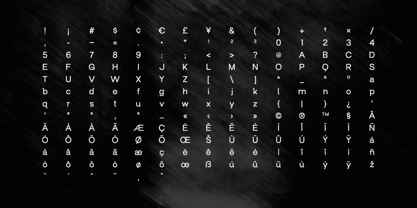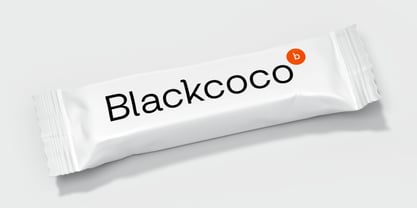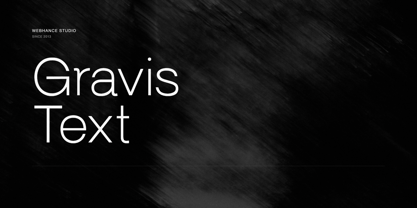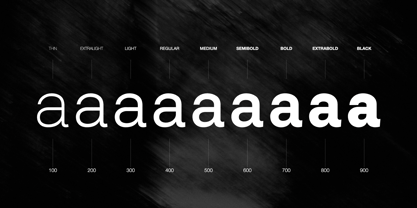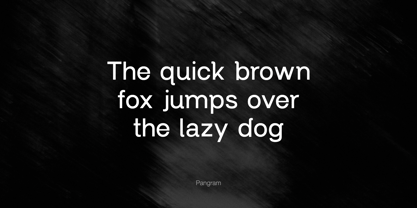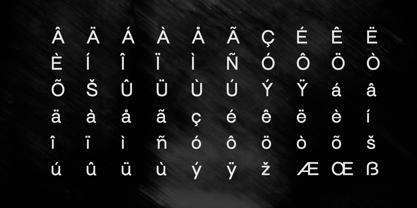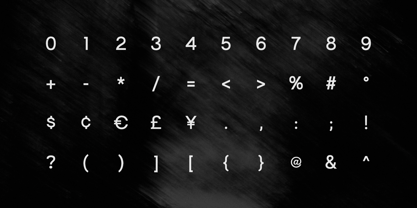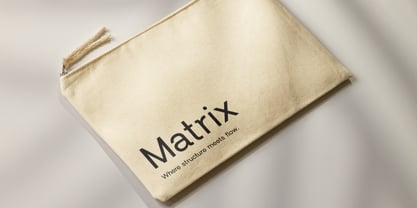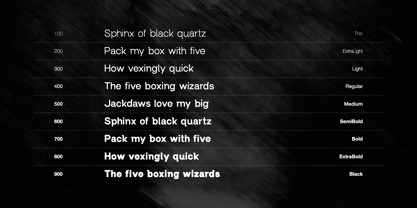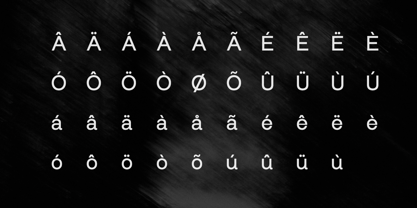
Gravis Text
La familia tipográfica Gravis Text fue diseñada por Ancy George y publicada por Webhance. Gravis Text contiene 9 estilos y opciones de paquete familiar. Más información sobre esta familia
GravisText is a contemporary geometric sans-serif typeface created for designers who demand clarity, versatility, and precision. Featuring clean construction, balanced proportions, and refined letterforms, it delivers a modern aesthetic that performs beautifully across both digital and print applications.
Designed with readability and consistency in mind, GravisText adapts seamlessly to branding systems, websites, user interfaces, editorial layouts, packaging, presentations, and marketing materials. Its neutral yet confident personality allows it to complement a wide variety of design styles while maintaining excellent legibility at every size.
The family includes 9 carefully engineered weights, ranging from Thin to Heavy, providing the flexibility to build strong visual hierarchy and expressive typography. From elegant body copy and editorial design to bold headlines and brand identities, GravisText offers reliable performance for every creative project.
With an extensive glyph collection, multilingual language support, numerals, symbols, punctuation, and OpenType features, GravisText is built to meet the needs of designers working on professional projects around the world.
Perfect For
Branding & Identity • UI & UX Design • Web Design • Mobile Applications • Editorial Layouts • Corporate Design • Packaging • Advertising • Social Media Content • Presentations • Digital Products